Nootype
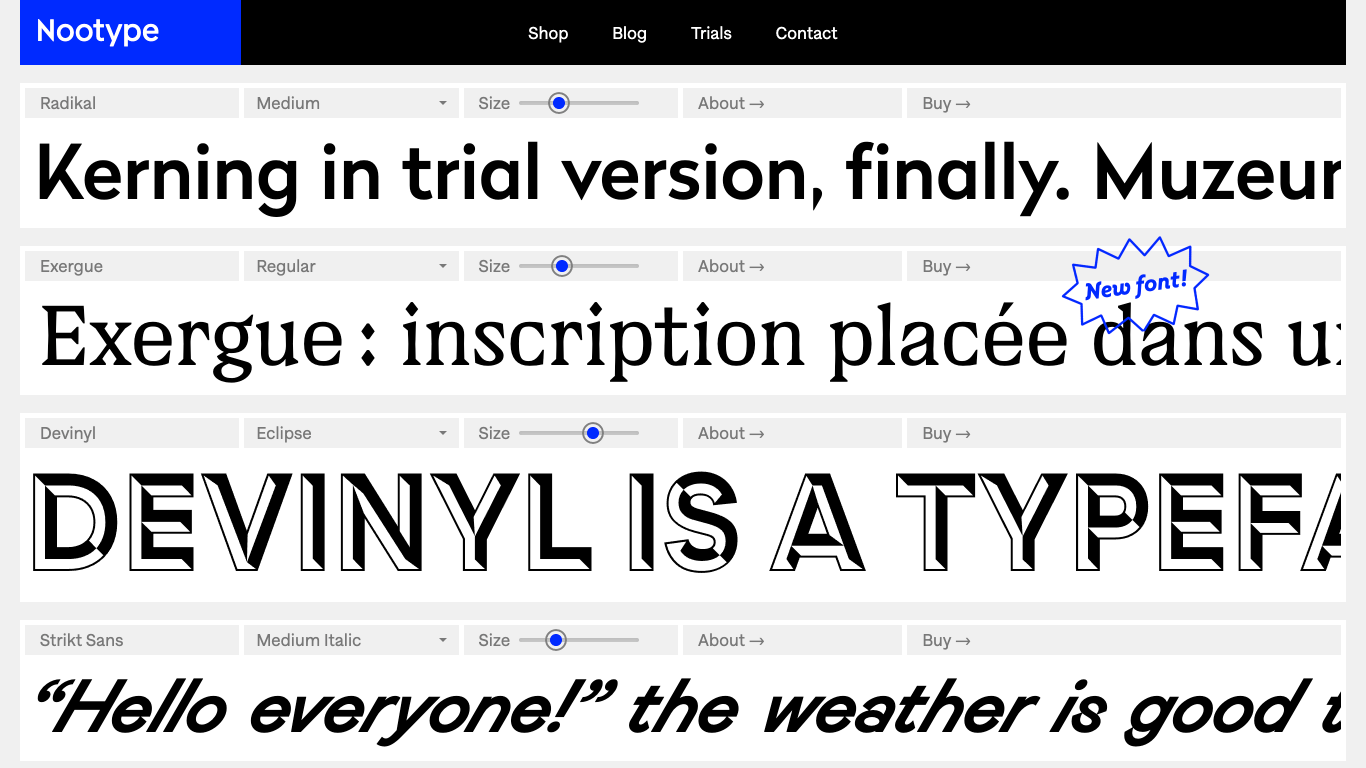
Switzerland
2013
Nootype is an independent type foundry founded in 2013 by Nico Inosanto, based in Switzerland. The foundry's primary mission is to offer new and fresh typefaces for various uses, with a focus on providing fonts that feature different styles and OpenType functions, making them suitable for complex editorial work and striking display purposes. Nootype's typefaces are designed to support multiple scripts, including Cyrillic, and are available through platforms like MyFonts Nootype has collaborated with notable clients such as the University of Technology of Warsaw, Ole & Steen, La Banque Postale of France, and Bugatti.